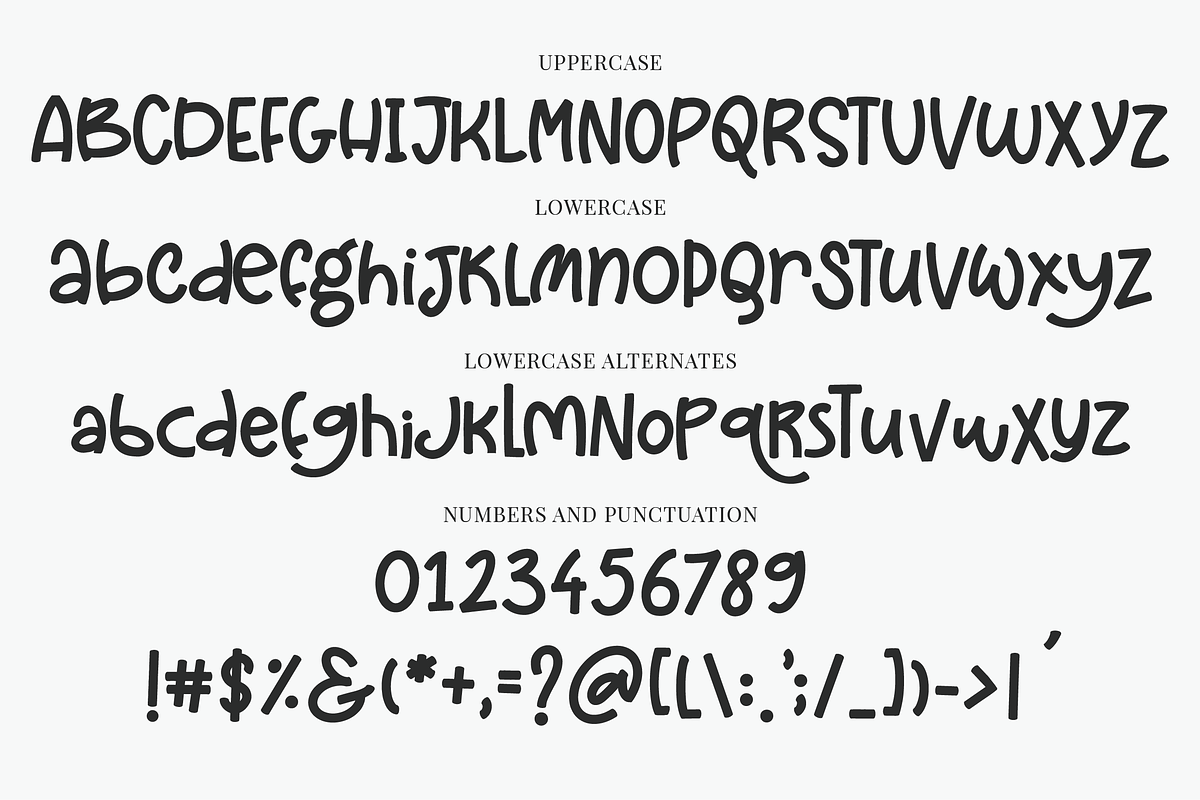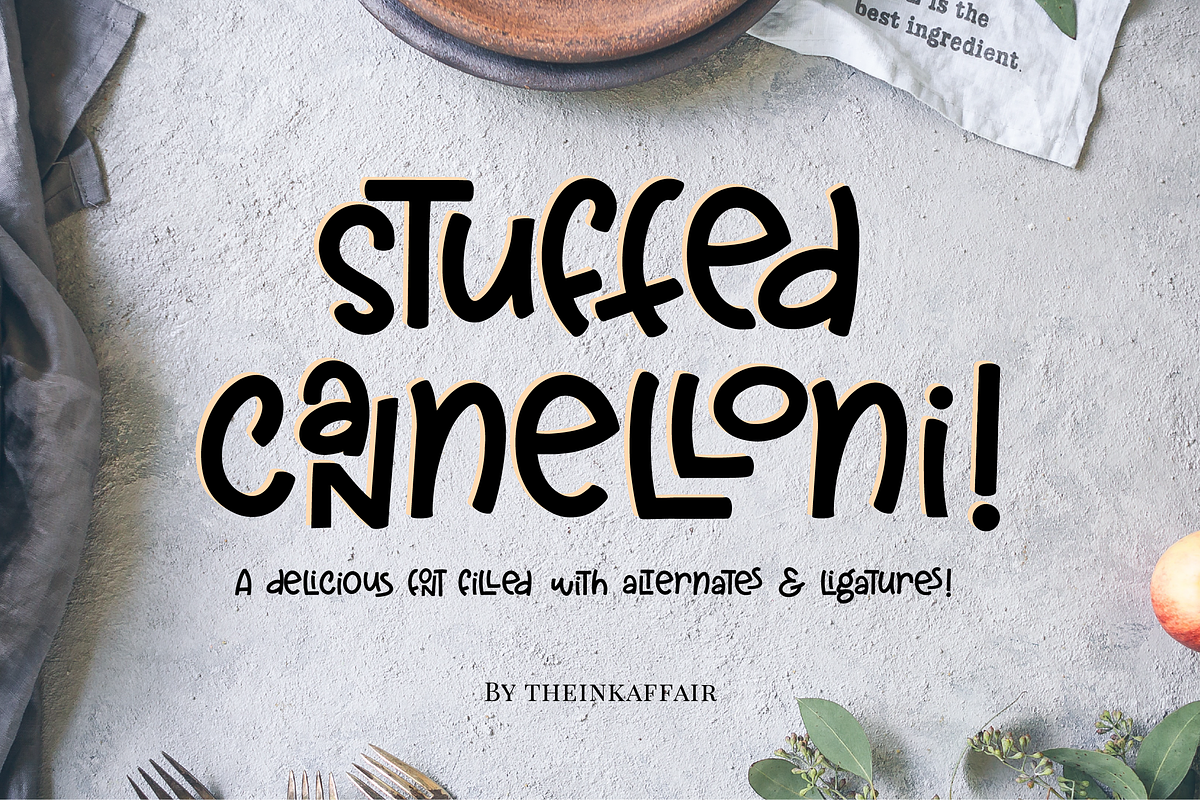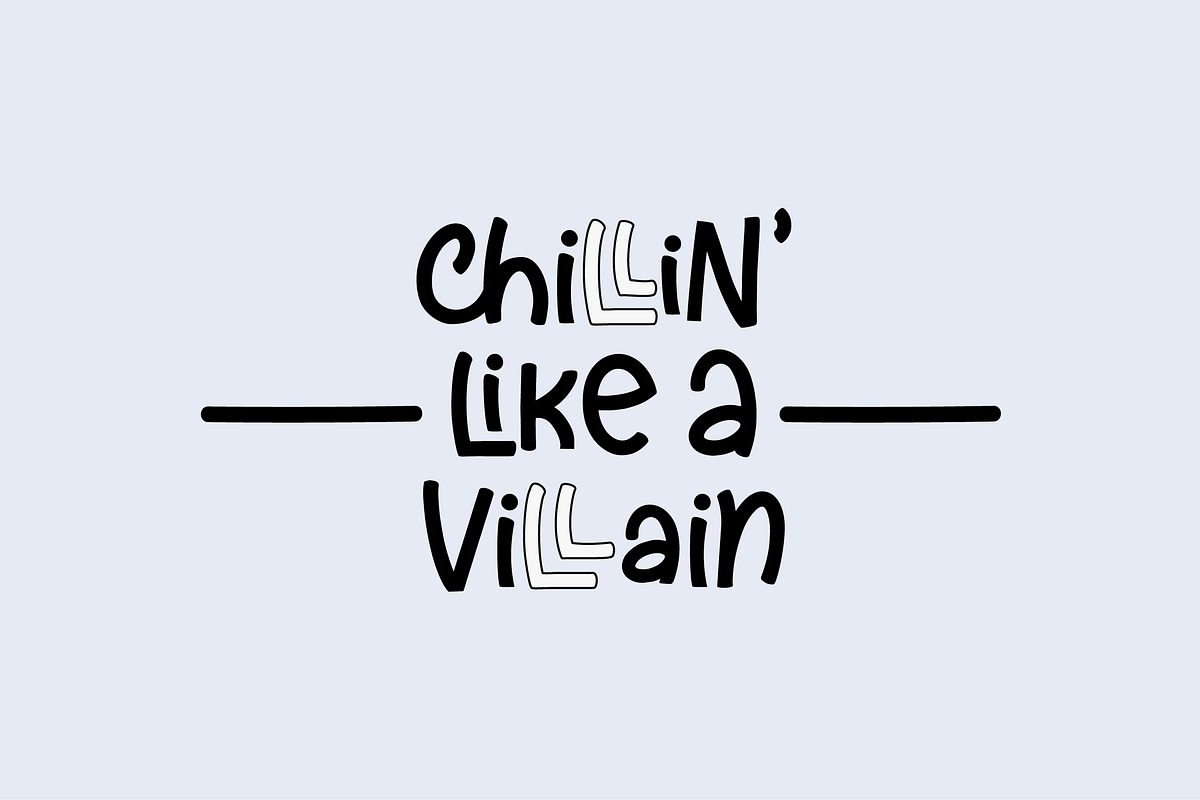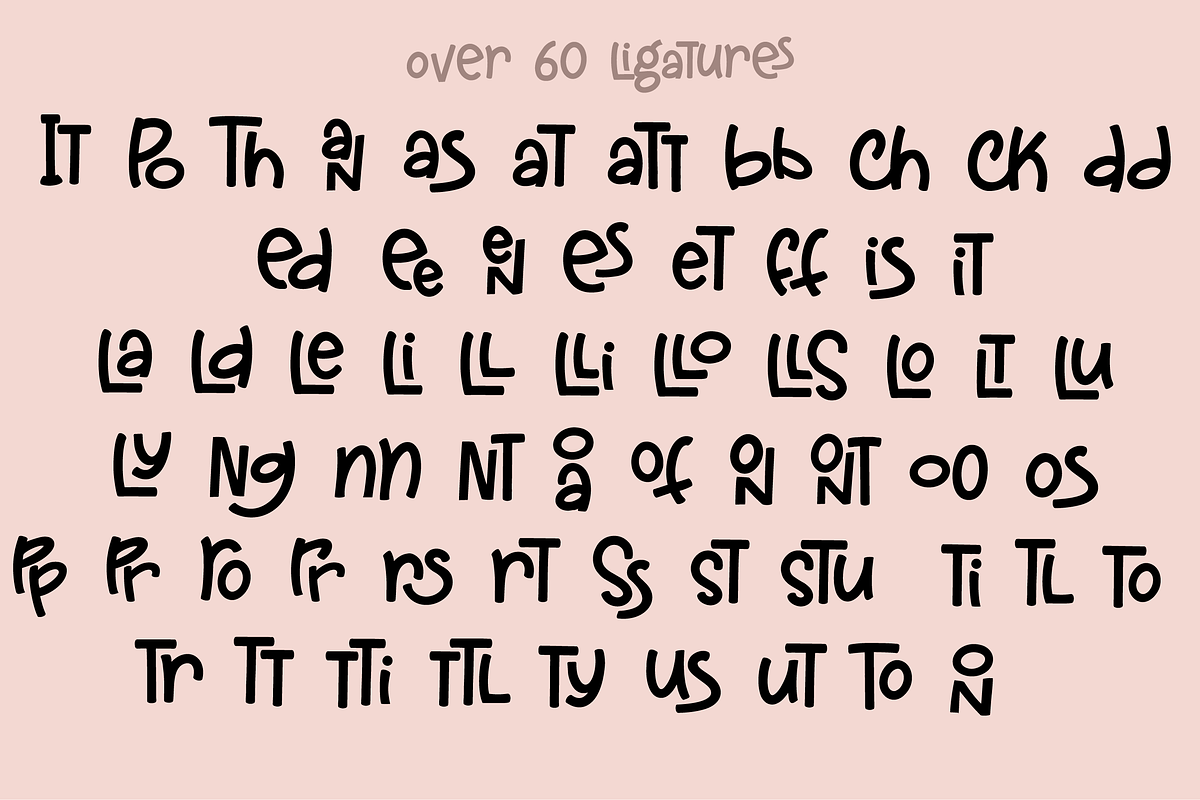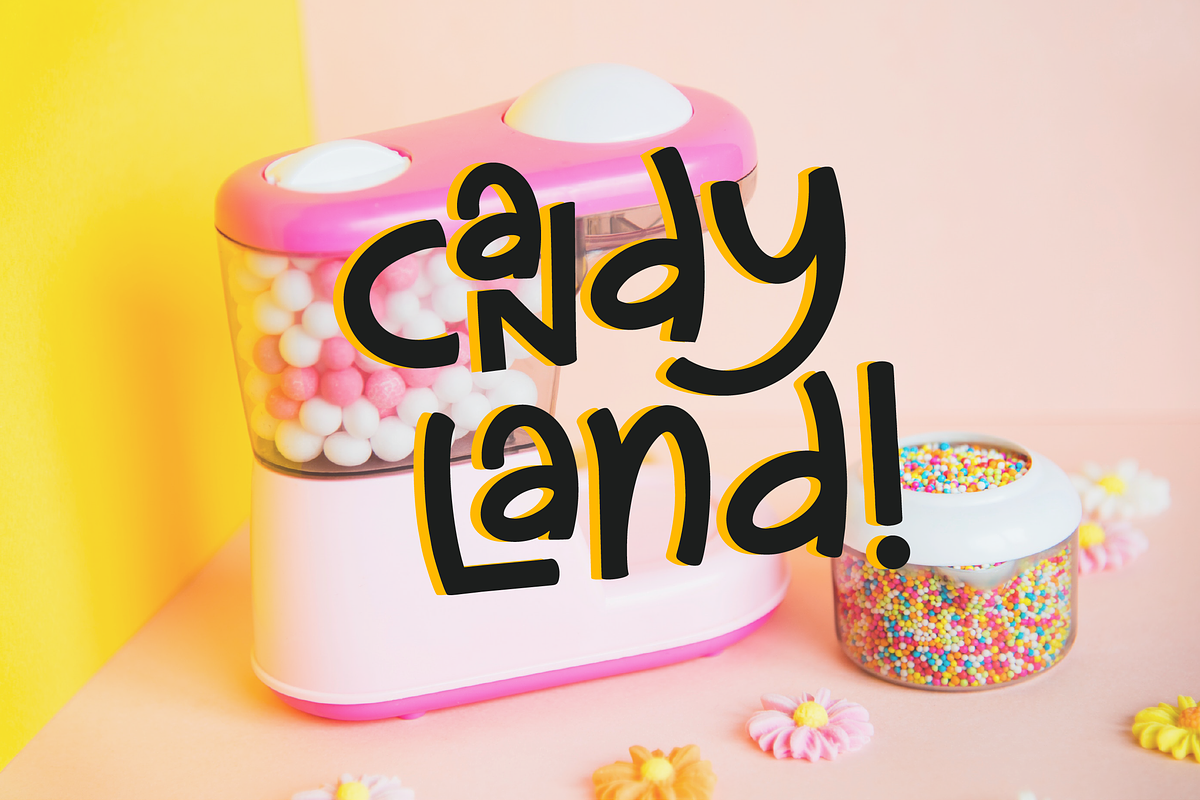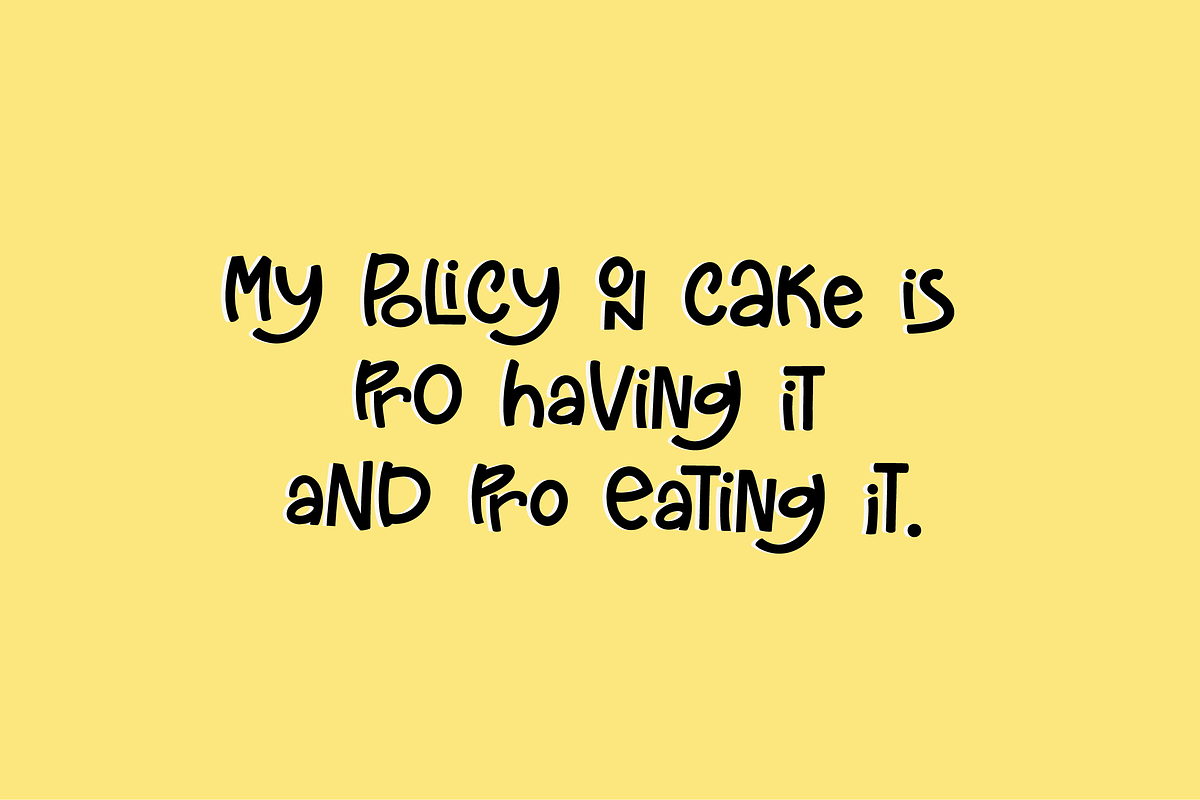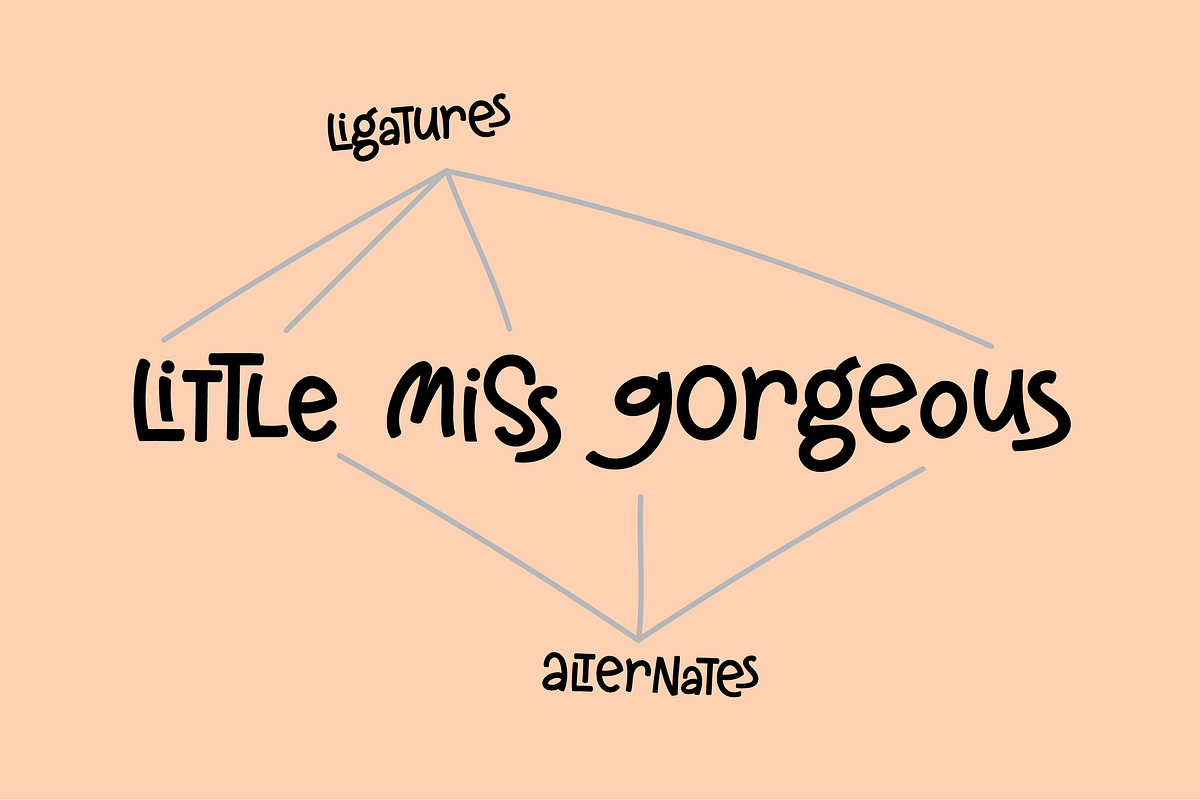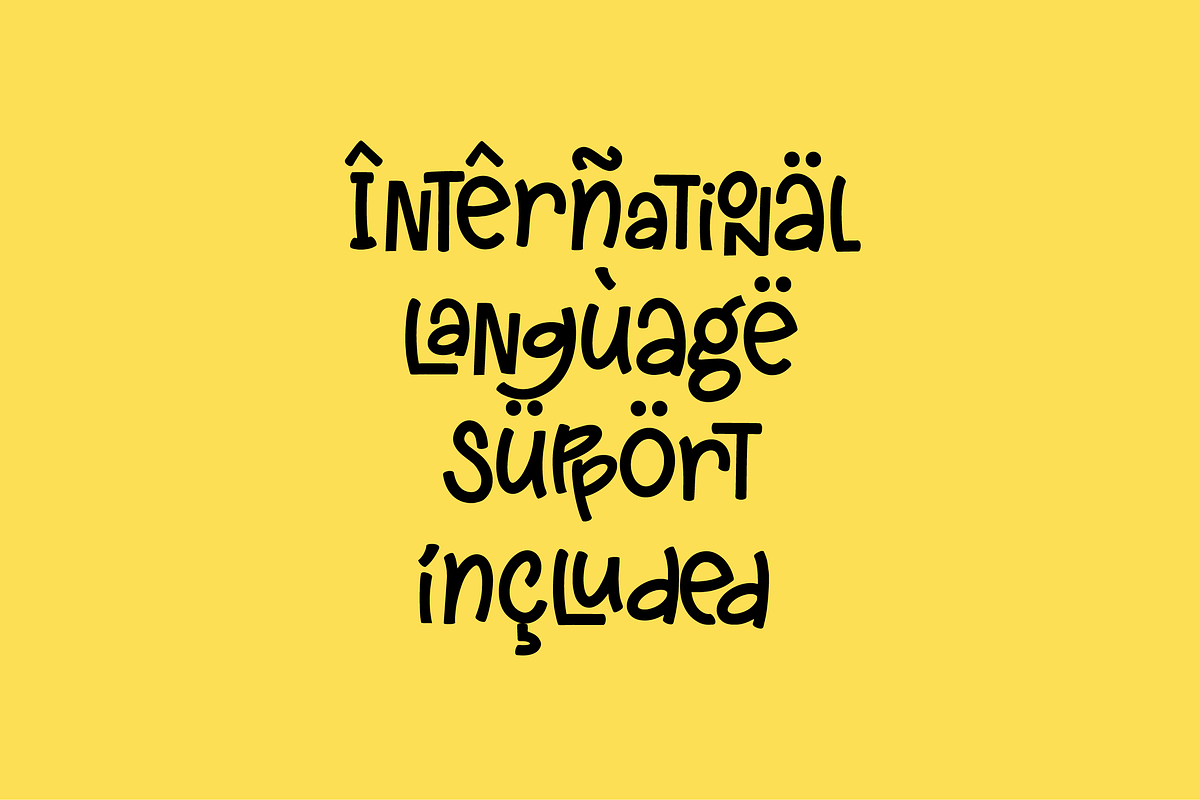
Stuffed Cannelloni Font
Introducing Stuffed Cannelloni, a super fun font filled with alternates and ligatures galore! Grab some stuffed cannelloni and get cooking some deliciously wonderful designs coz it goes perfectly with everything!
- Includes uppercase, lowercase alternates and over 60 ligatures!
- international language support included
Stuffed Cannelloni Font by theinkaffair fits naturally into Branding, posters, packaging, typography.